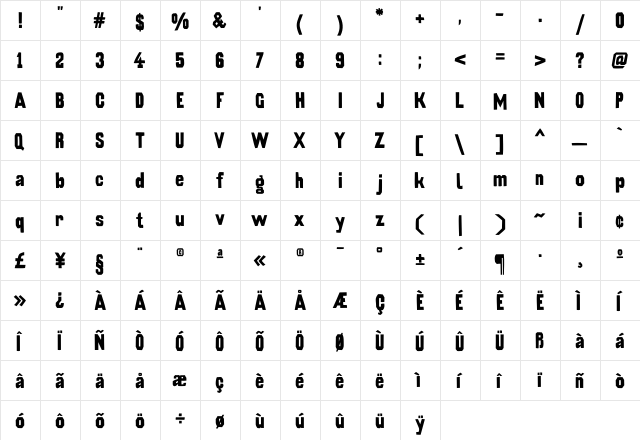
Iodine Bold
Design Context for Iodine Typeface
Iodine is a composed and adaptable typeface that performs quietly and consistently across a wide range of design contexts. Its bold stroke weight gives it real presence on the page.